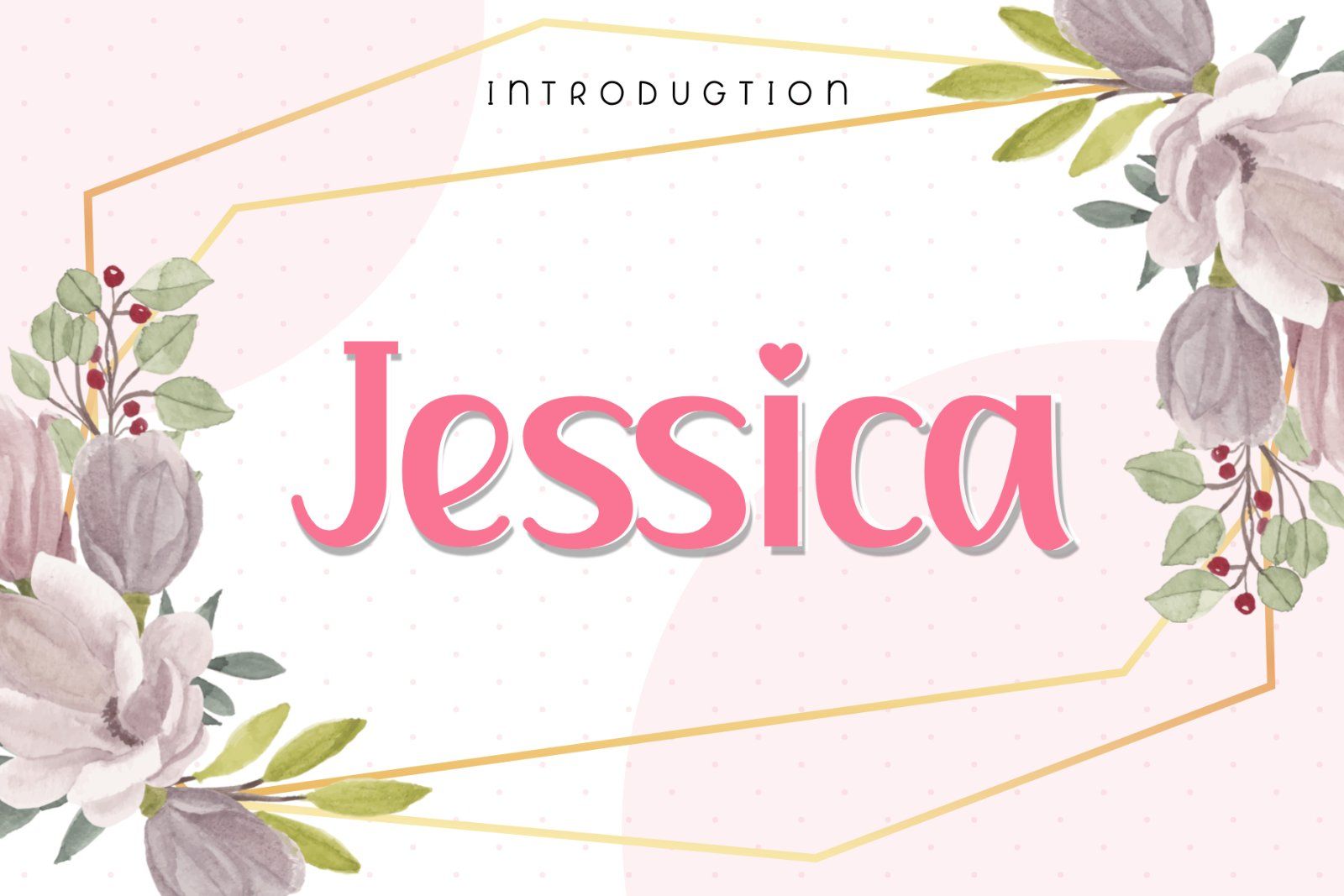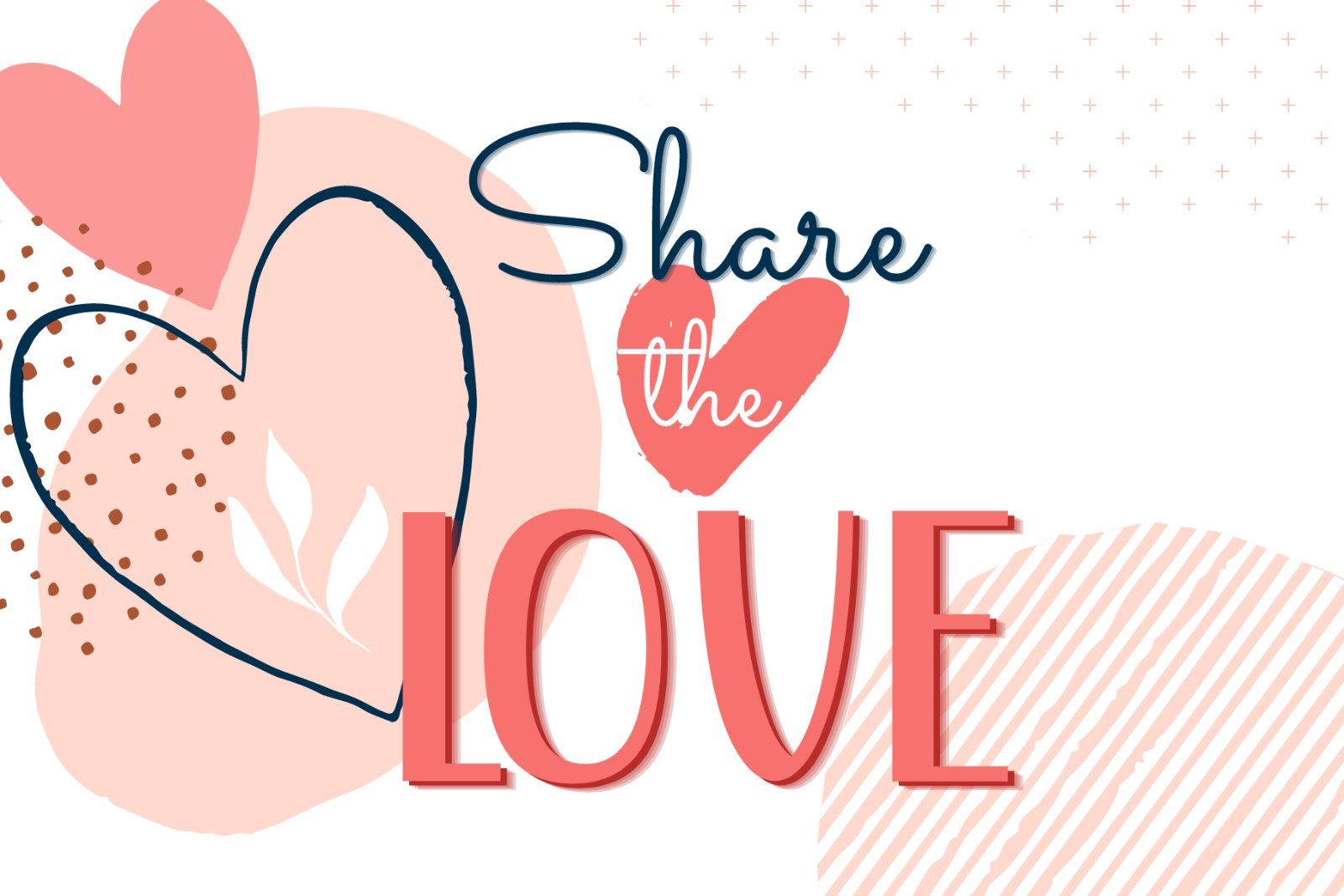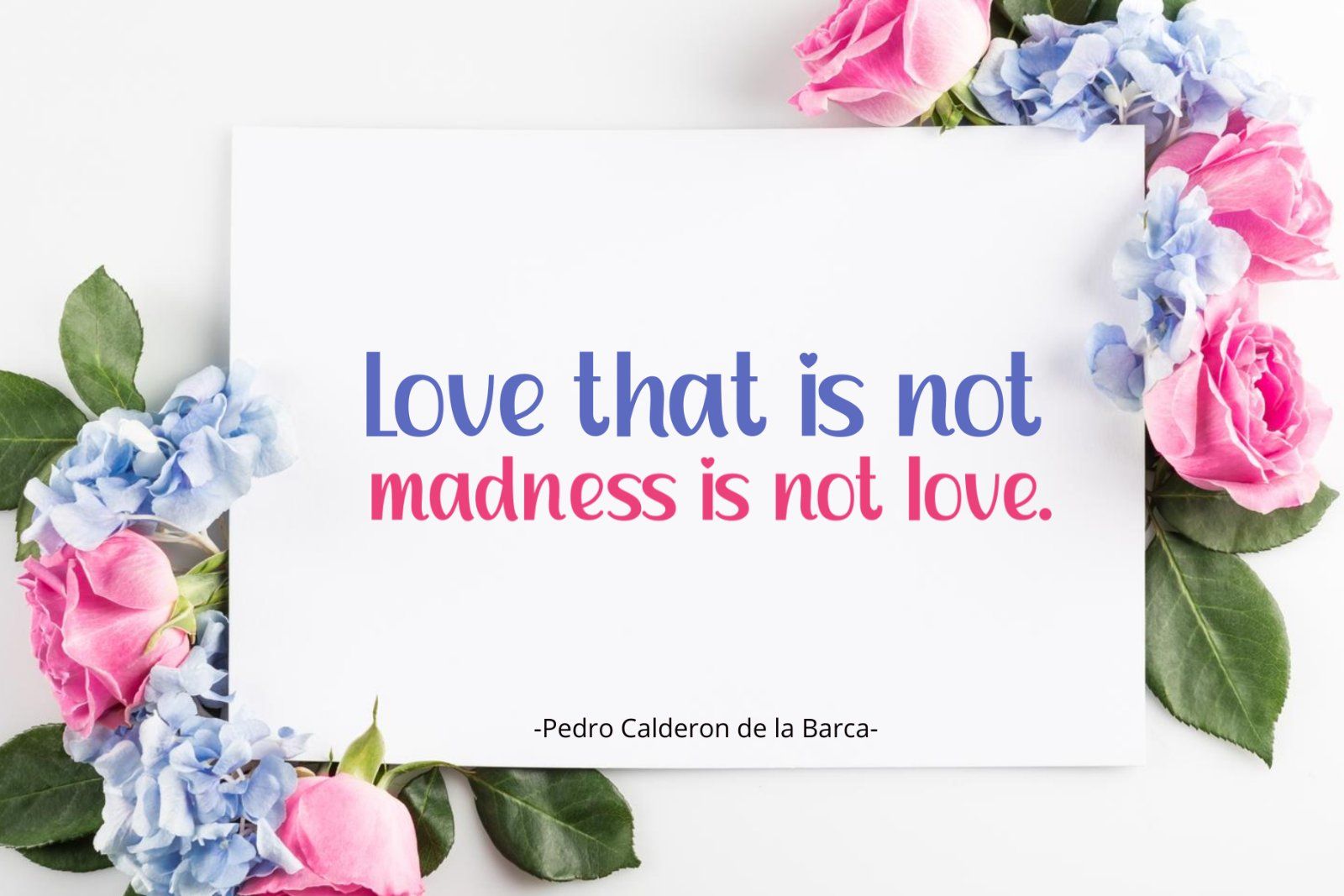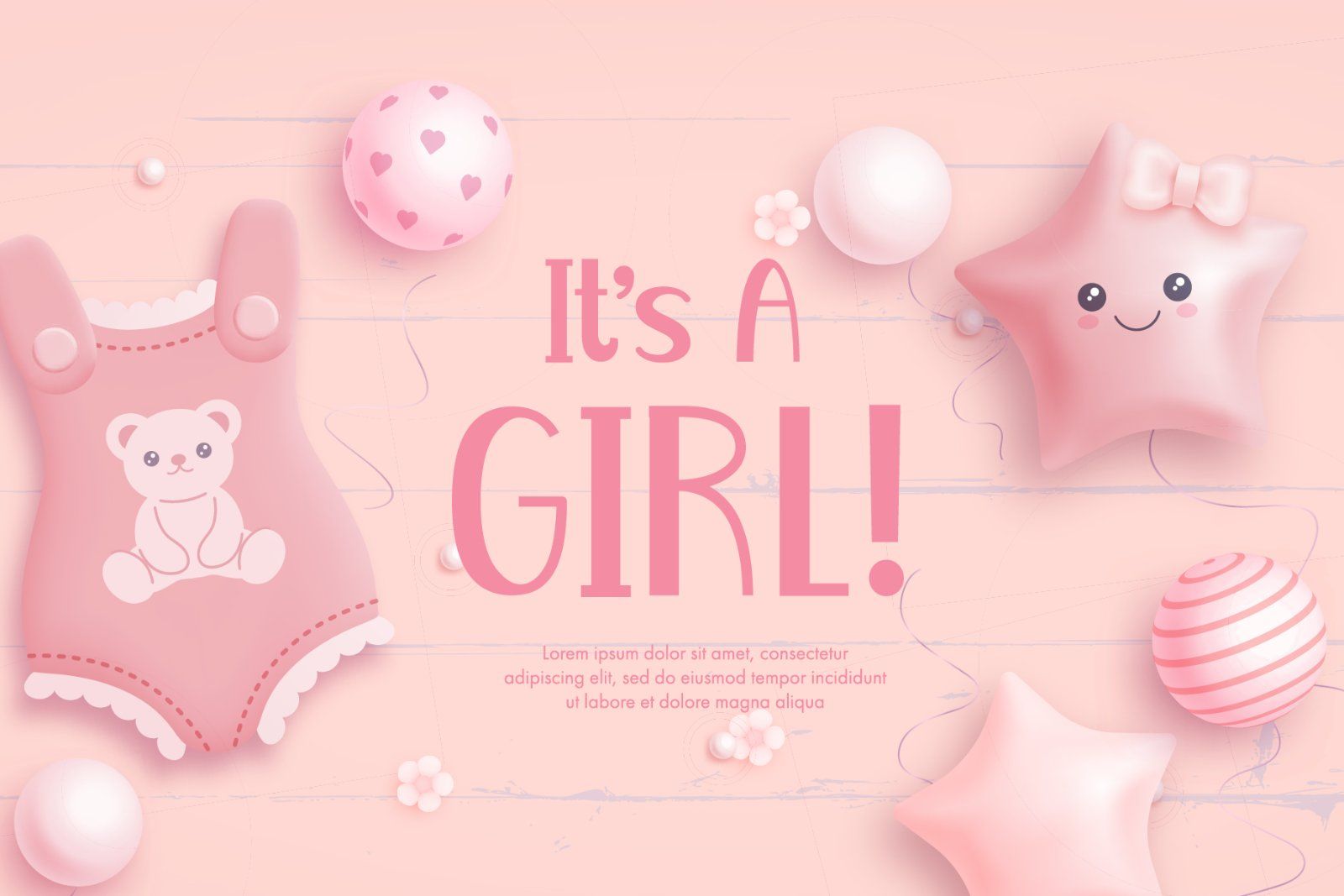
Jessica is a fun display font that is easy to read and has a comfortable feel. You can use it for various projects, such as blog posts, logos, branding, ads, invitations, greeting cards, planners, photo albums, decorations, and much more.